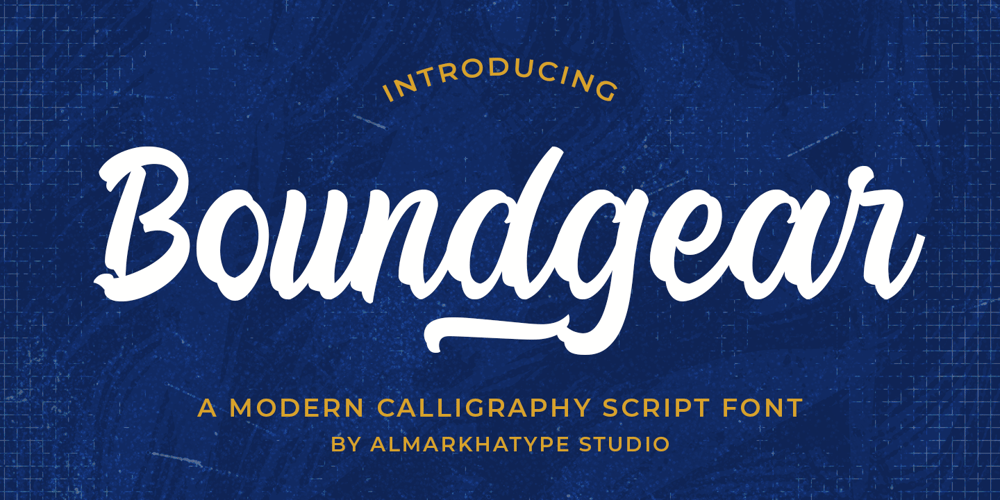
Boundgear Font Family was designed by Abdul Malik Wisnu, Rivo Adriansyah and published by Almarkha Type. Boundgear contains 1 styles and family package options. Boundgear: Discover a refined calligraphic font, embodies a clean, elegant style with meticulous detailing and gentle strokes. With its fancy alternate characters, graceful tails, captivating ending swashes, and a range of ligatures, Boundgear adds versatility and sophistication to your projects. Plus, its extended character set ensures seamless support for multilingual languages, enhancing your global appeal. Elevate your designs with Boundgear today!Accessible in Adobe Illustrator, Adobe Photoshop, Adobe InDesign, and even work on Microsoft Word. PUA Encoded Characters – Fully accessible without additional design software. Fonts include multilingual support, image used: All photographs/pictures/vectors used in the preview are not included, they are intended for illustration purposes only.